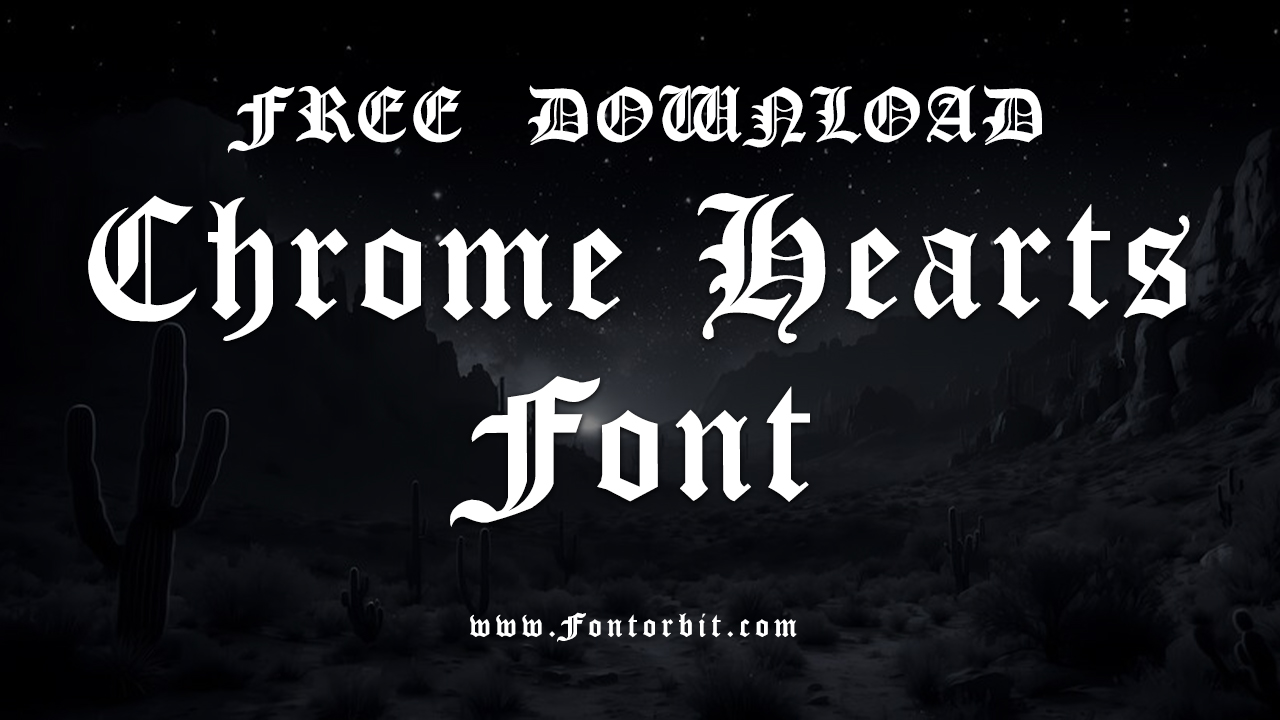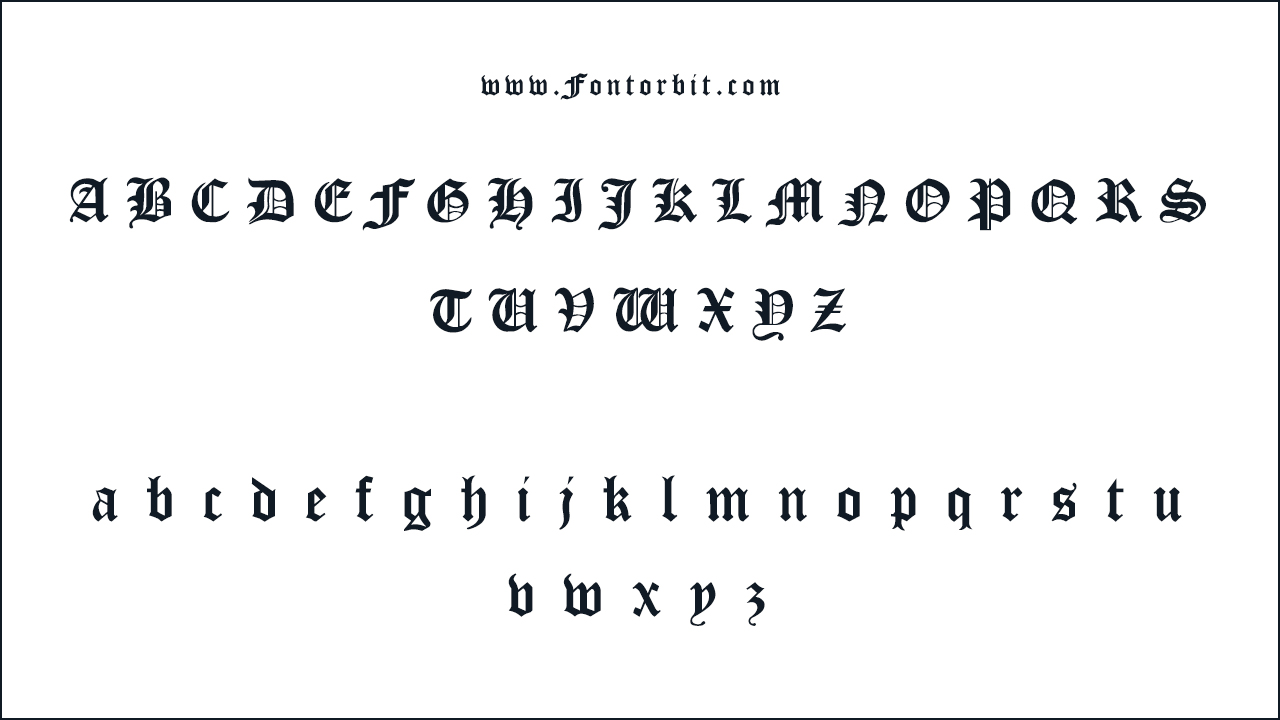
Inspired by the luxury brand’s distinct logo typeface, Chrome Hearts Font closely resembles Cloister Black by Dieter Steffmann. This blackletter typeface, originally designed by Morris Fuller Benton in 1904, features an elegant, refined style with inflexible strokes and powerful series.
It conveys a sophisticated tone and is ideal for branding, books, and posters. Cloister Black also features prominently in the Thug Life logo and is licensed for both personal and commercial use.
The Chrome Hearts Font Family Includes
Chrome Hearts Font’s design showcases the elegance and durability of blackletter typefaces. Chrome Hearts Font embodies the elegance and durability of blackletter typefaces through its variations, including Cloister Black by Dieter Steffmann, Cloister Black by Bitstream, Cloister Black CT by CastleType, and OPTI Cloister Black.
- Cloister Black
You’ll often see Chrome Hearts Font in contexts where a touch of class and tradition is required. Its elegant, blackletter style makes it a popular choice for luxury branding and high-profile design projects. The design principles behind Chrome Hearts Font focus on elegance, readability, and a classic blackletter aesthetic.
It combines strong, inflexible strokes with refined detailing to evoke sophistication and timelessness. Chrome Hearts Font’s strong, refined look makes it suitable for a range of high-end design applications:
- Booklets
- Product Packaging
- Book Covers
- Advertisements
- Event Invitations